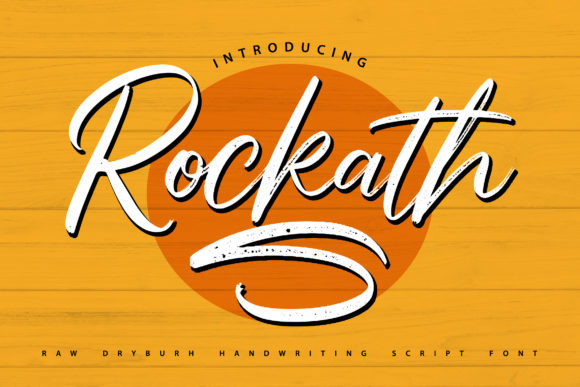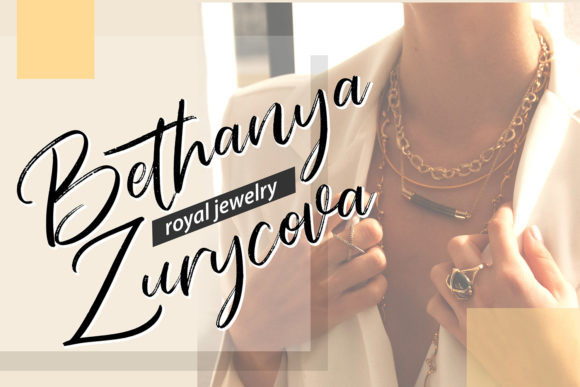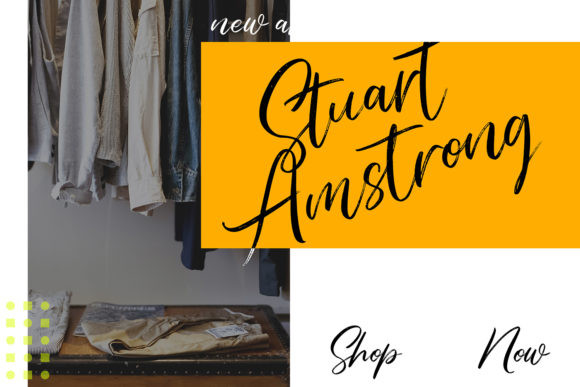
Rockaths Font
Rockath is an incredibly distinct, delicate and timeless handwritten font. It looks stunning on wedding invitations, thank you cards, quotes, greeting cards, logos, business cards and every other design which needs a handwritten touch.